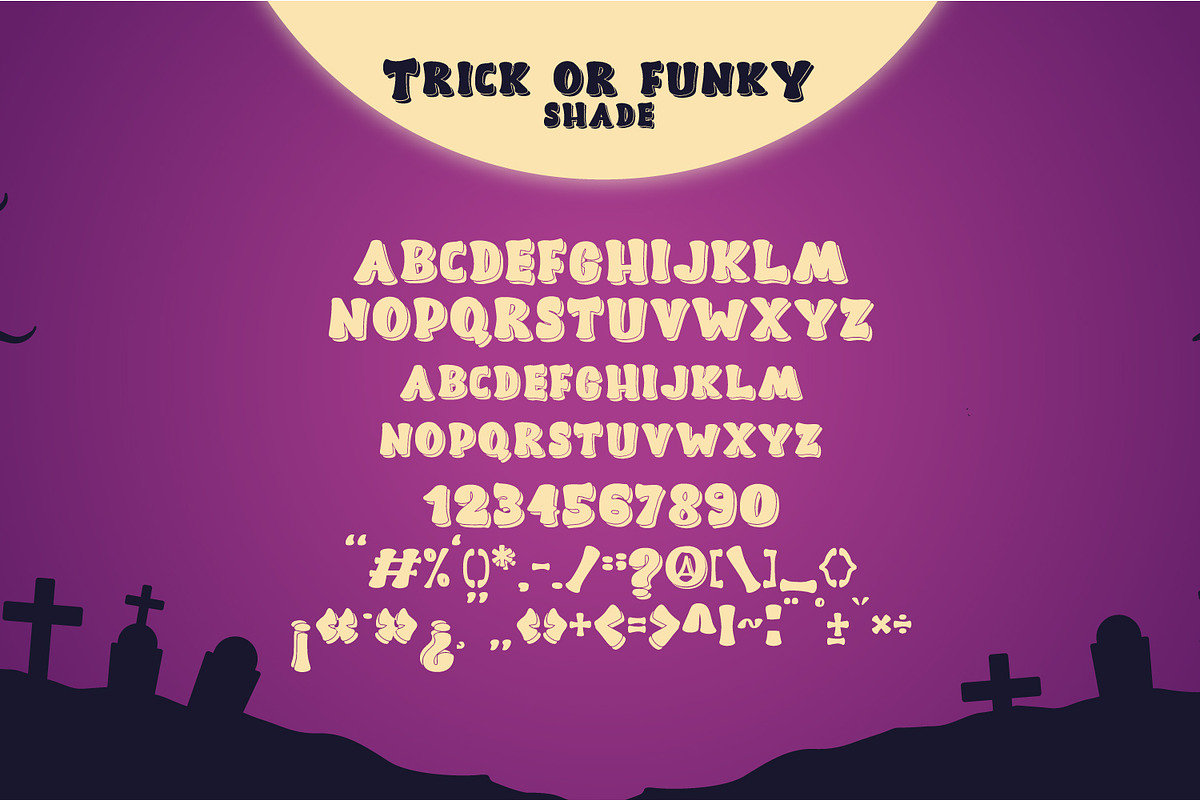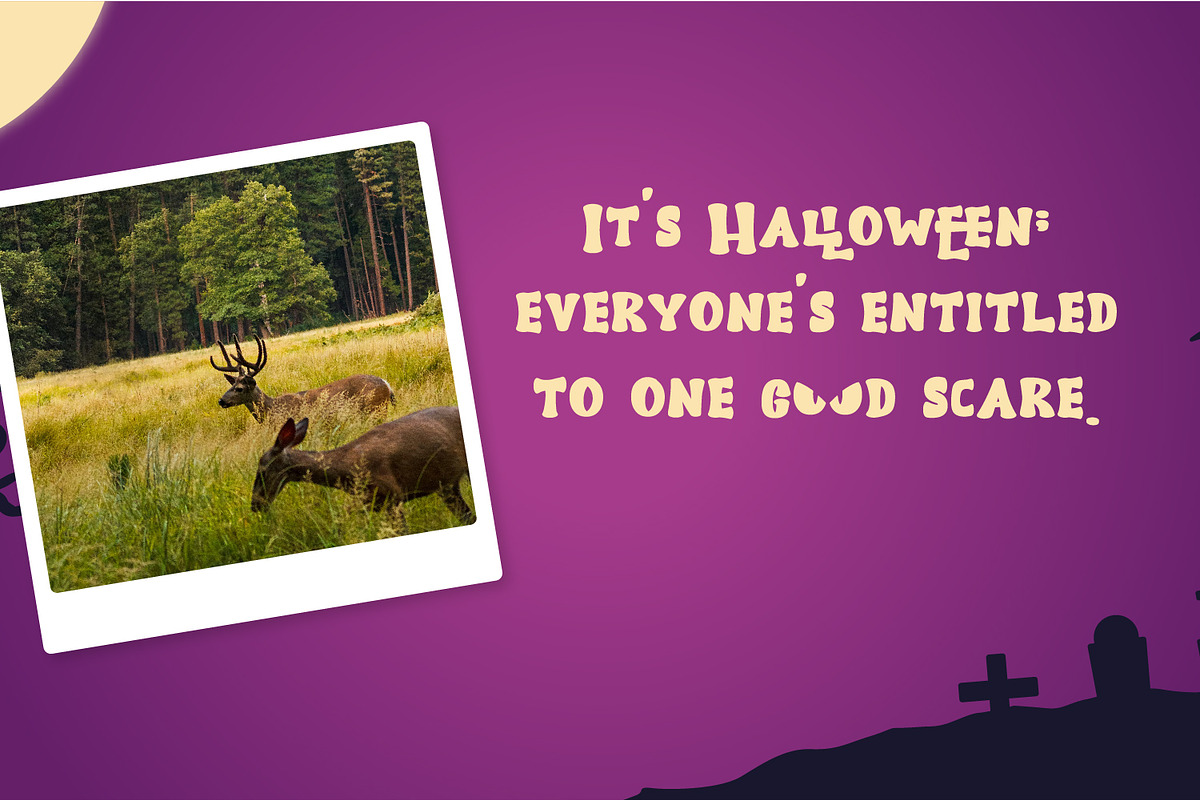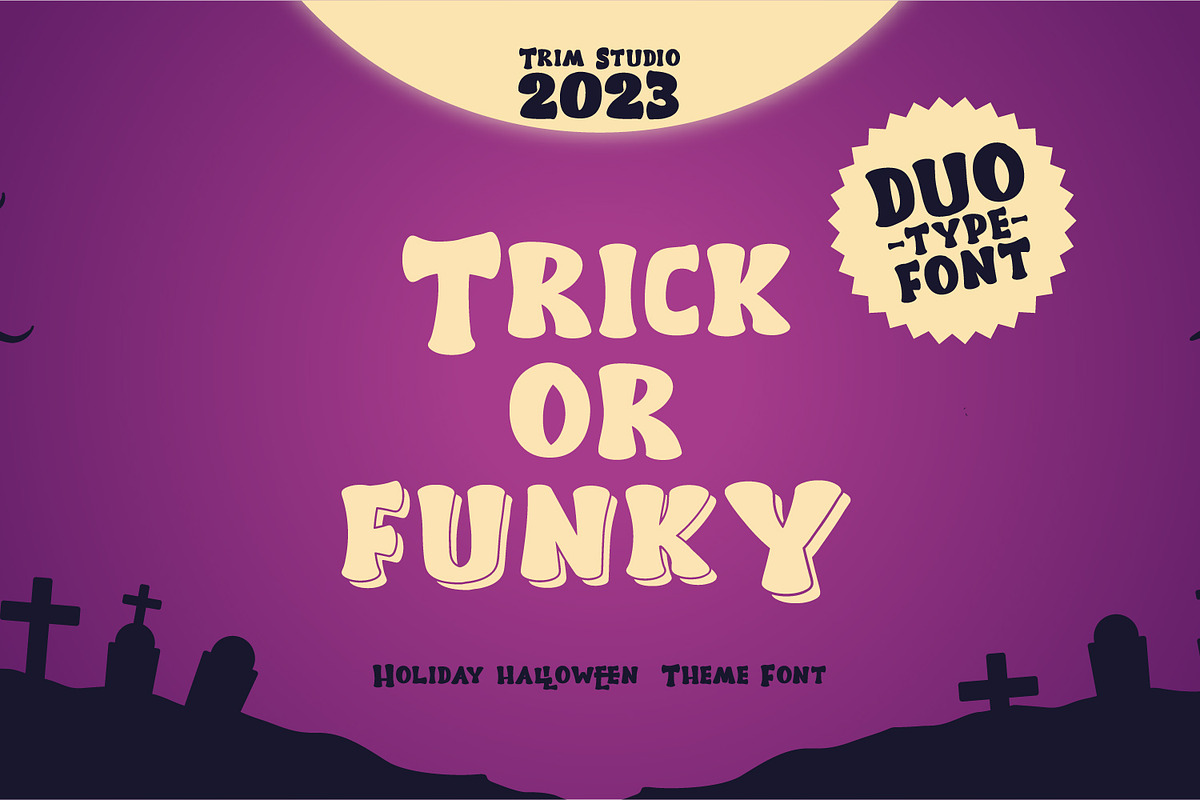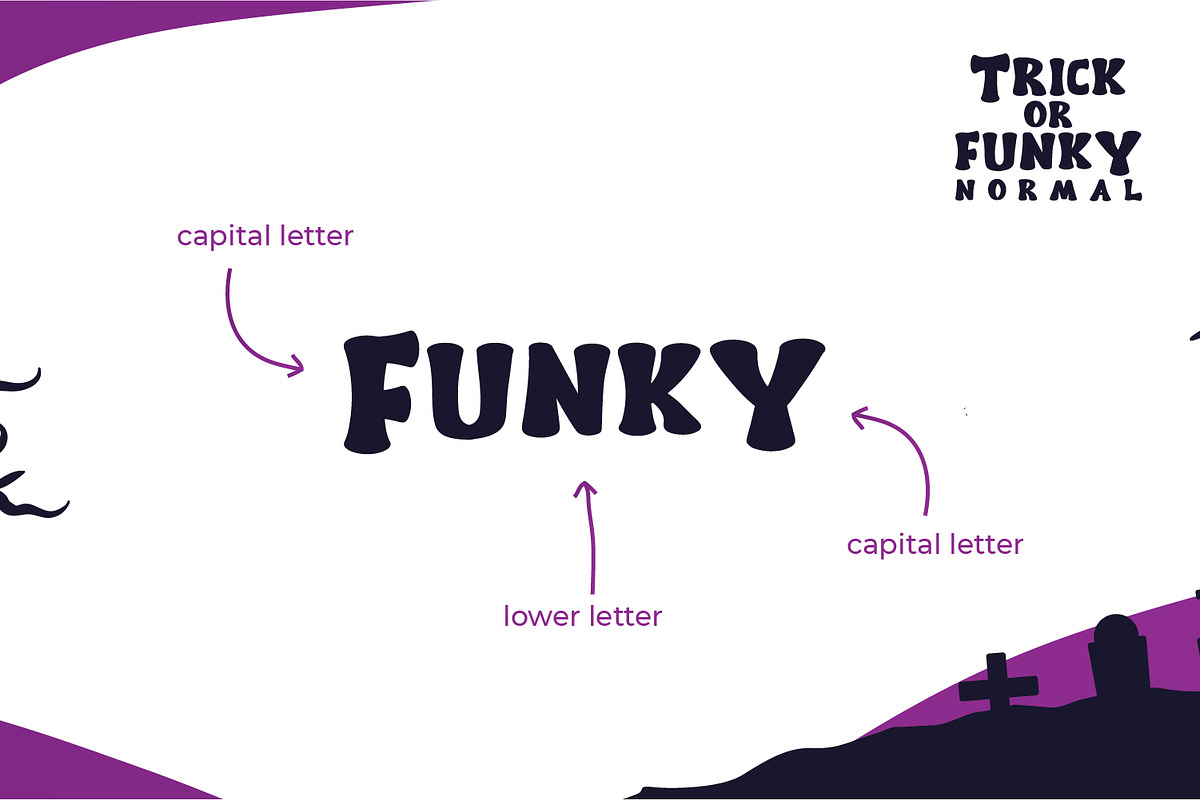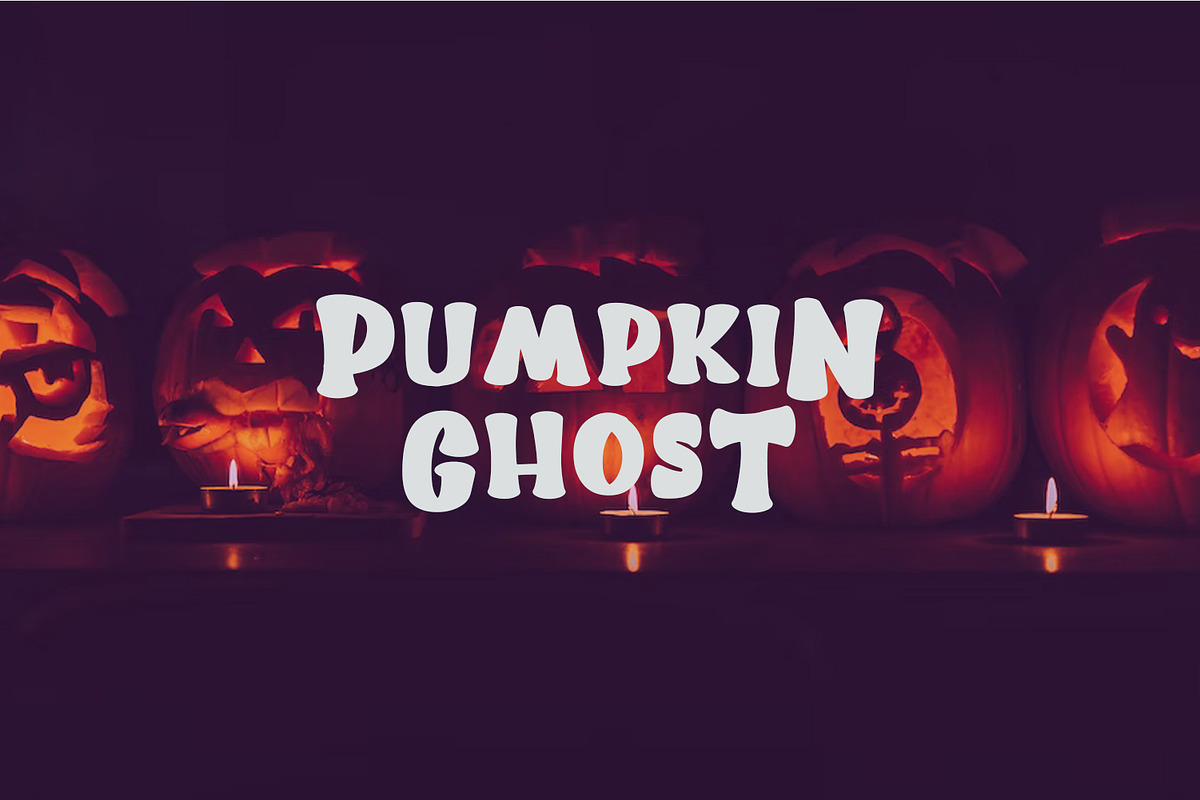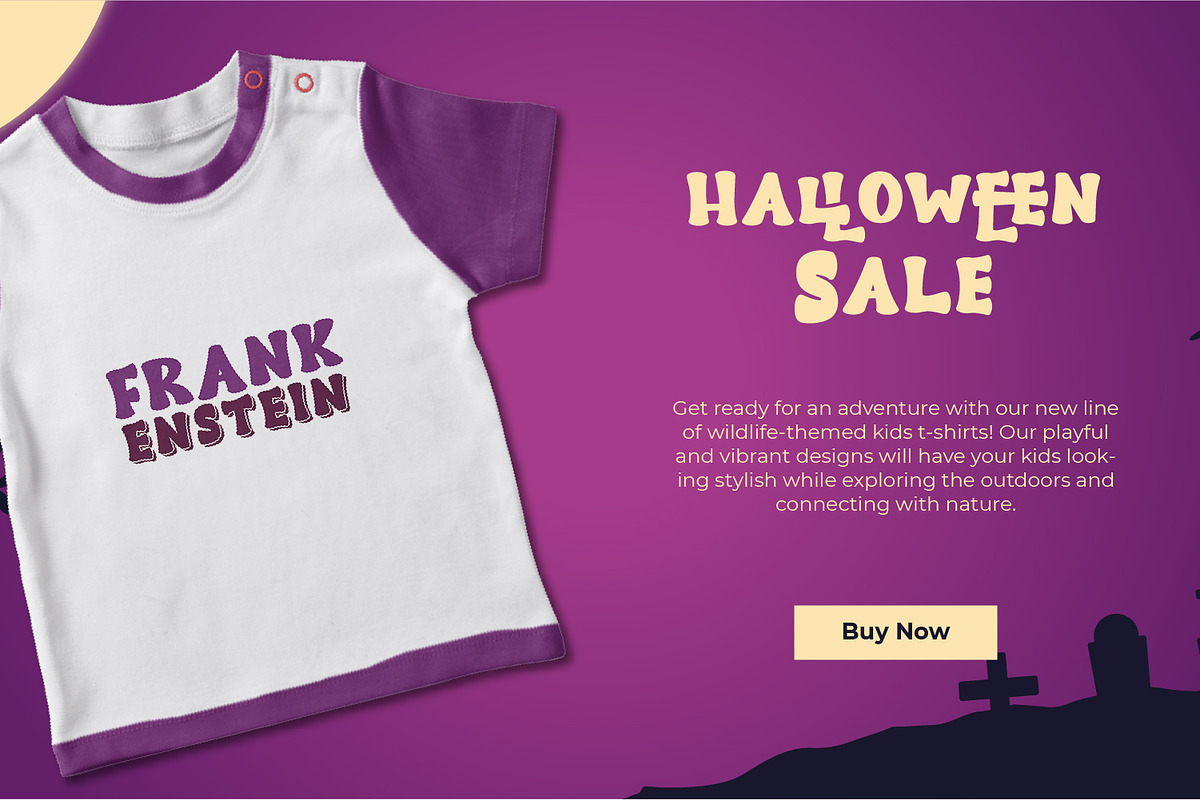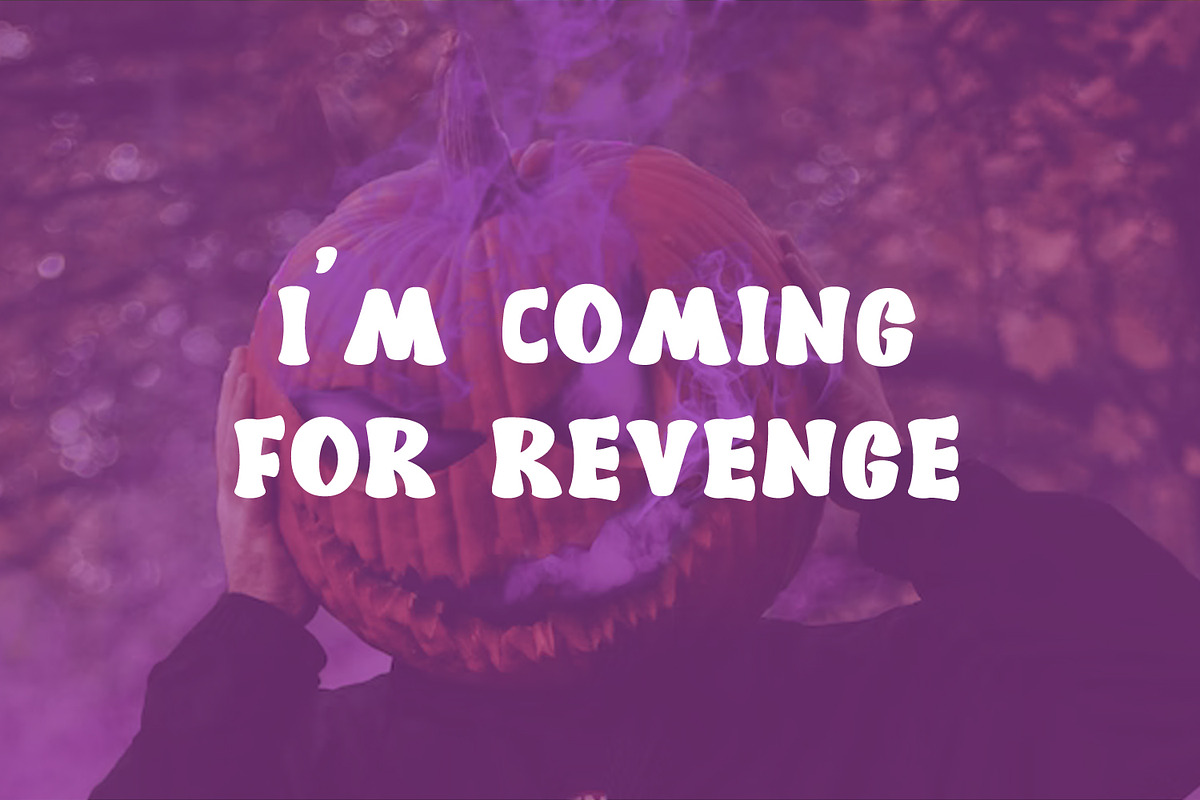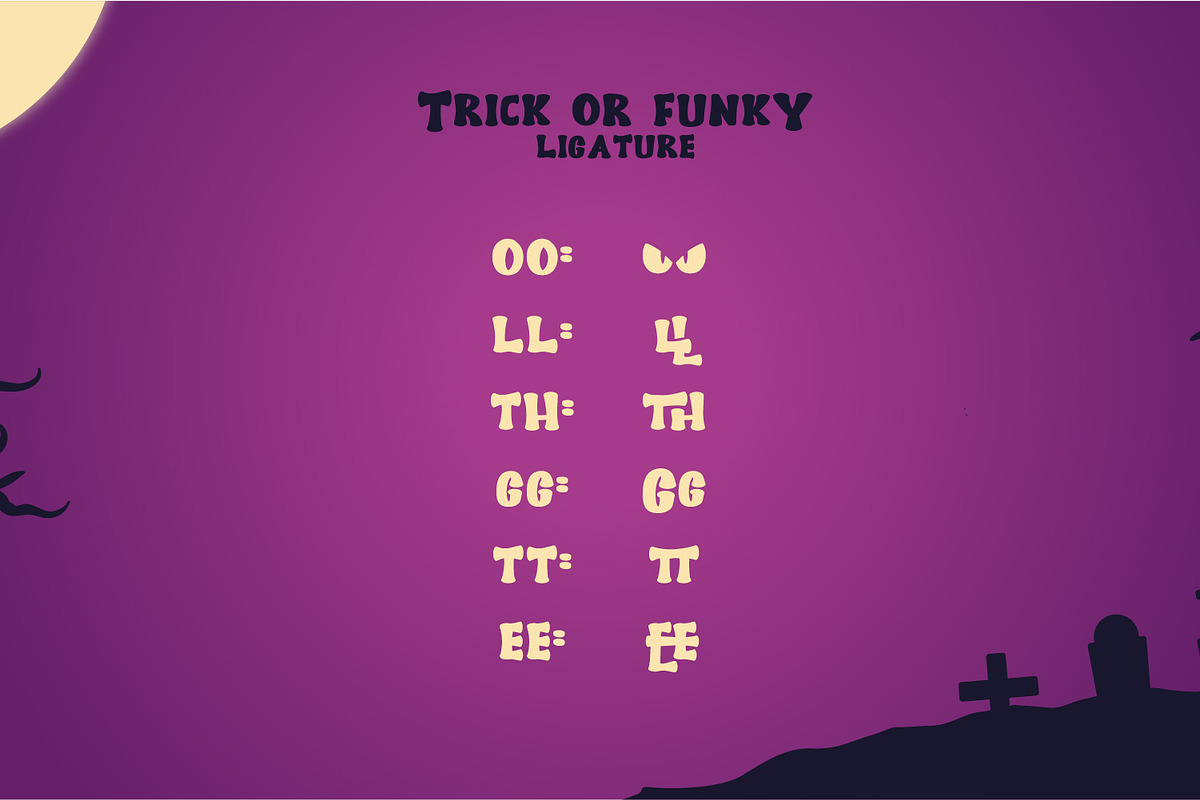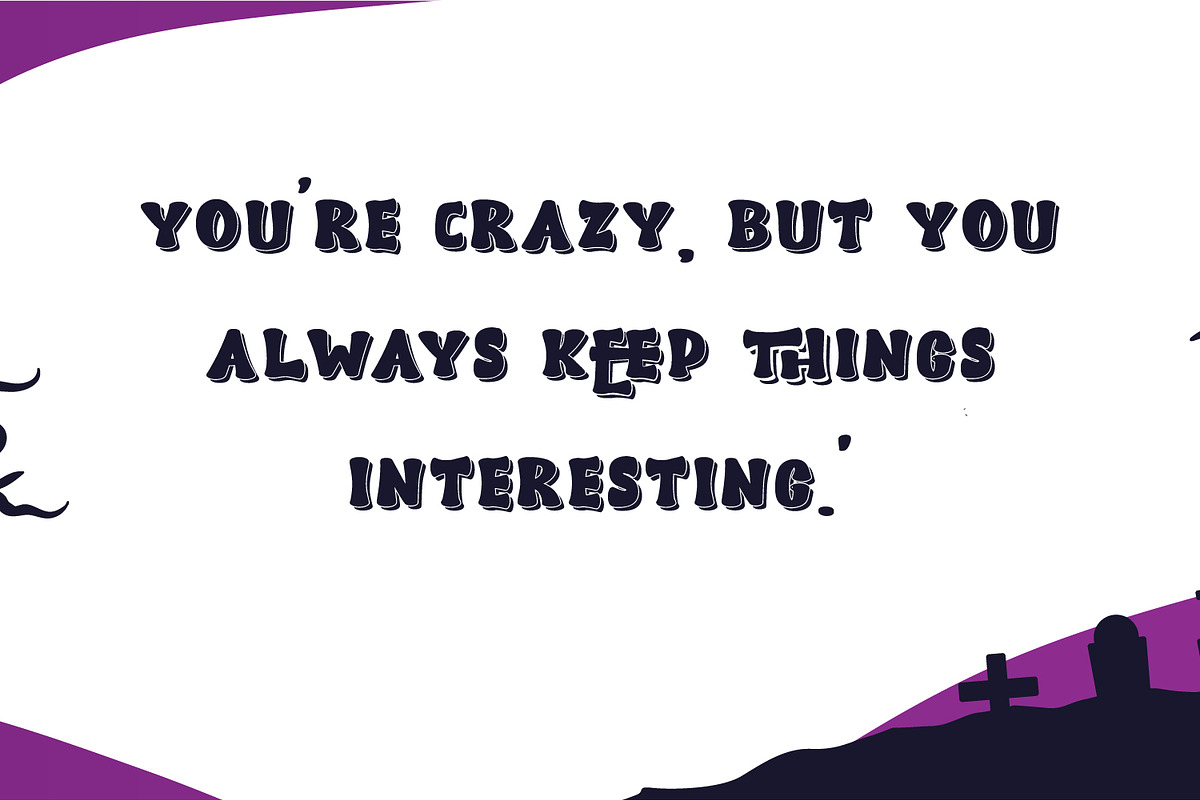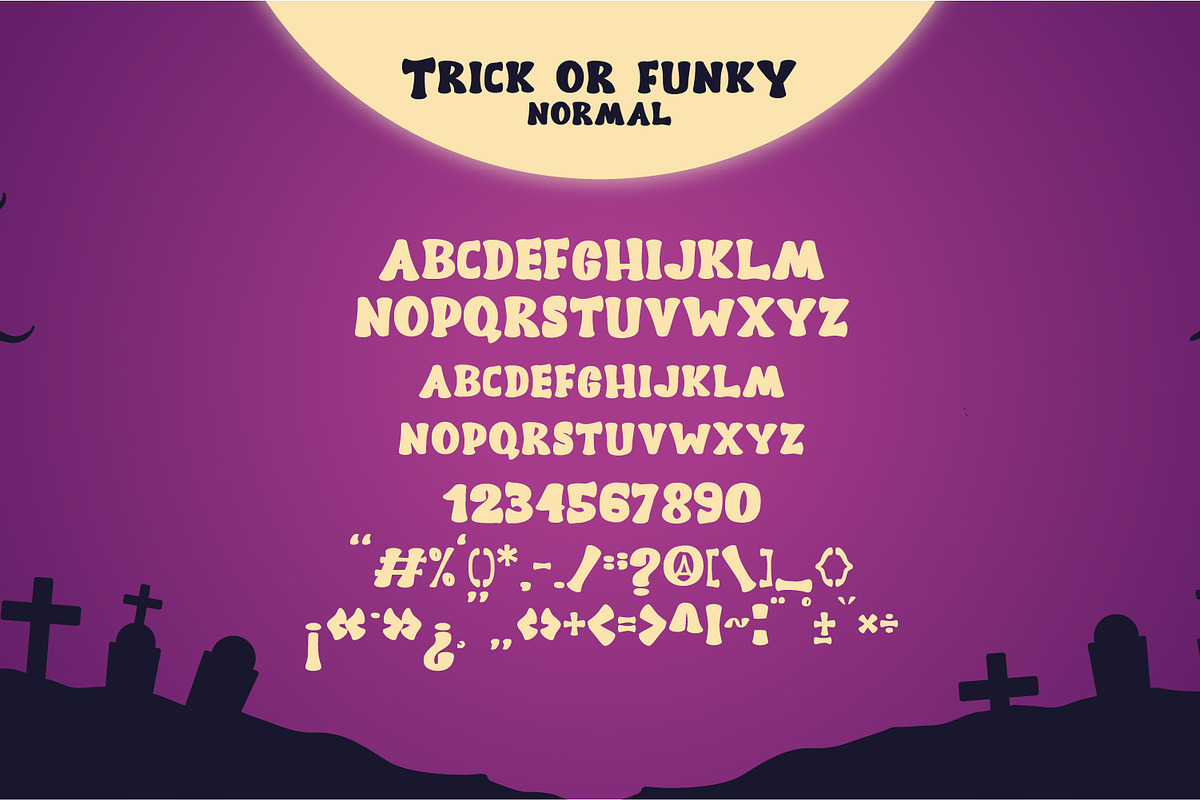
Tricky or Funky Halloween Theme
Tricky or Funky is a playful and festive font that adds a touch of Halloween fun to your designs. The style makes you easy to combine the "big letter" on the front or end of word, this gives you funky and quirky on your halloween theme